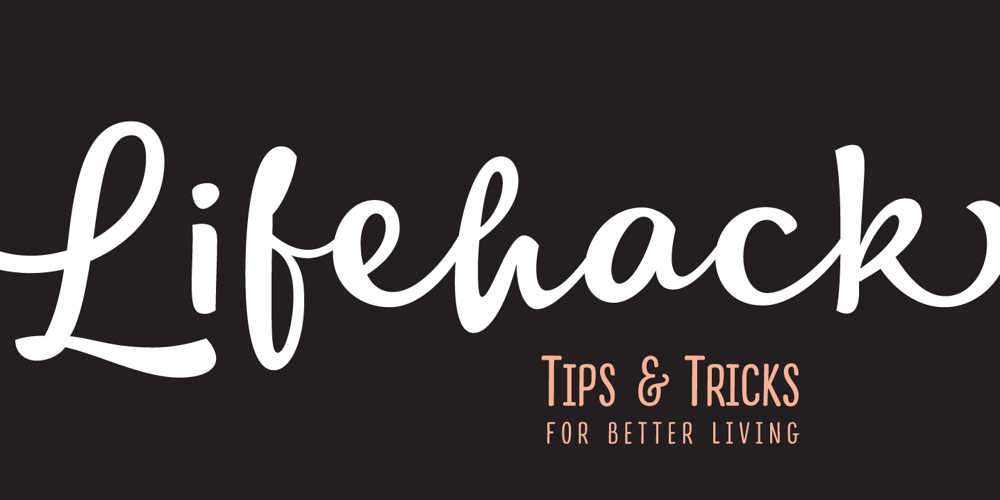
Lifehack Font Family was designed by Veneta Rangelova and published by DearType. Lifehack contains 11 styles and family package options. Dear type lovers, meet Lifehack – a casual script with a huge personality. Warm, amiable and organic, yet elegant, it is perfect if you want to convey individuality and style. The Lifehack family consists of the original Lifehack script, an Italic version, a narrow handdrawn Sans and a Basic version of limited glyph set with letters that do not connect. All fonts in the Lifehack family work easily together to create visually appealing logos, packaging, presentations, headlines or editorials. The combination of casual sans and a script has proven useful many times and thus preferred both for print and web. When it comes to OpenType features, Lifehack comes with swashes, stylistic alternates and initial/terminal forms for you to give a custom flare to your designs. All fonts have several weights and a lovely collection of goodies – various ornaments, borders and ribbons that complement the fonts’ charm and uniqueness.